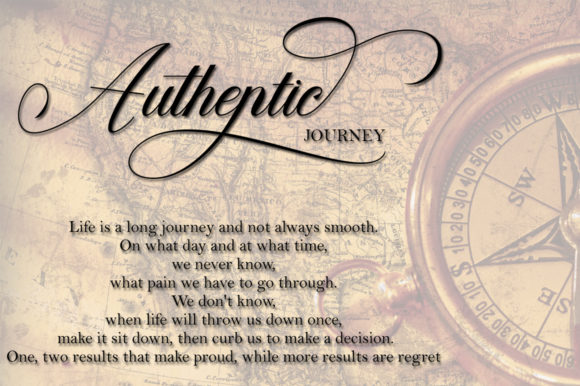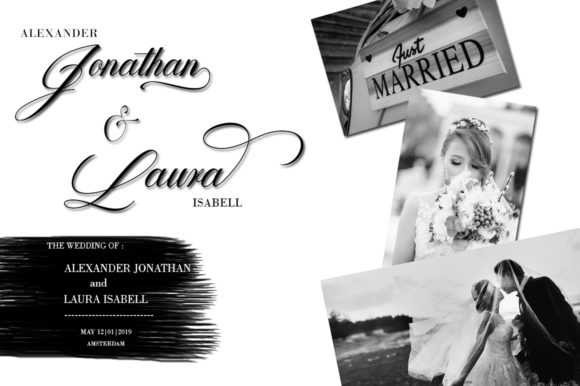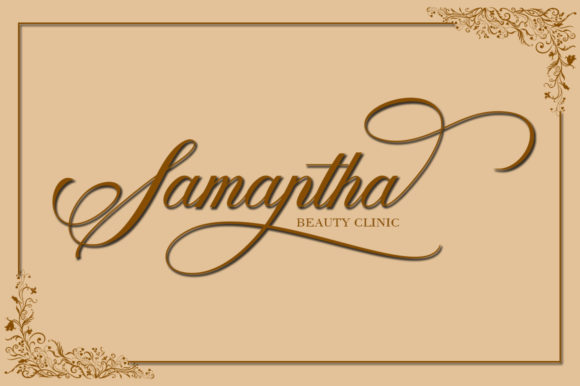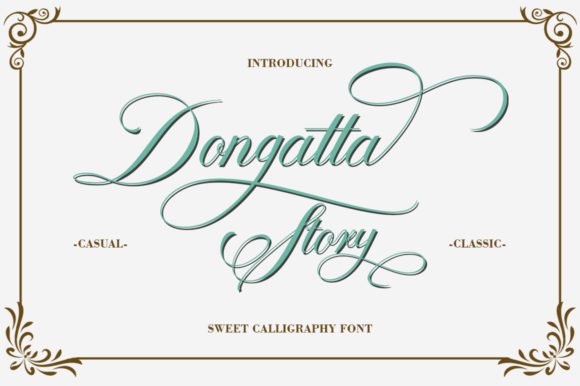
Introduction to Dongatta Story Font
Dongatta Story Script is a calligraphy script font that comes with beautiful alternative characters.
It’s elegant and stylish, and will work for many different design purposes .
Key Features of Dongatta Story Font
Why Choose Dongatta Story Font?
Dongatta Story Font offers exceptional quality and versatility, making it a valuable addition to your design toolkit. Whether you’re creating for personal projects or commercial use, Dongatta Story Font delivers professional results.